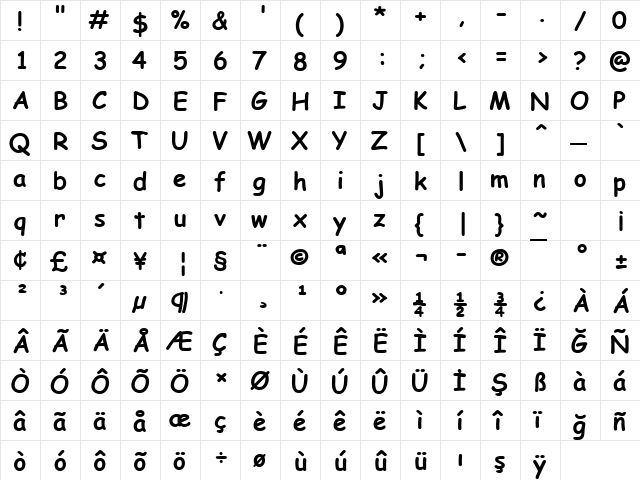
Comic Sans MS Digiscream Bold
Design Context for Comic Sans MS Digiscream Typeface
Comic Sans MS Digiscream has an approachable, lighthearted character — its loose, expressive forms are well-suited to children's content, casual branding, and fun-first design.
Great for children's books, toy packaging, family event branding, and casual consumer-facing design.
Font Pairing: Pairs well with a rounded or humanist sans for body copy, maintaining the friendly tone without relying on Comic Sans MS Digiscream to carry extended reading.
Pro Tip: Avoid using Comic Sans MS Digiscream for long passages of text — it works best for headlines, labels, and short calls to action.